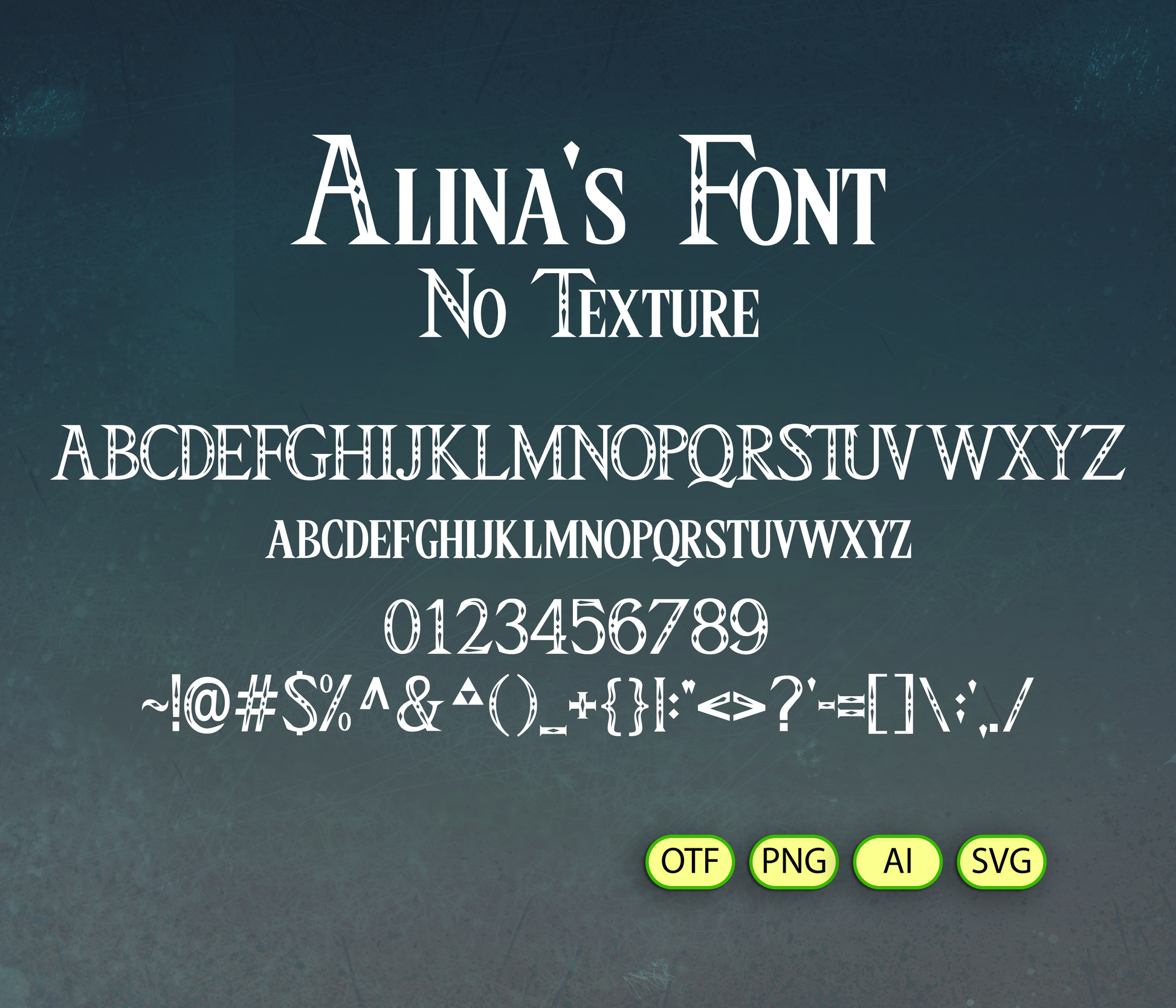
Heroic Adventure Celtic Font
Heroic Adventure Celtic Fantasy Style
Embark on an epic journey through mystical kingdoms and ancient prophecies with our Heroic Adventure Celtic Fantasy font, capturing the essence of legendary quests and magical realm exploration. Perfect for fantasy game creators, Celtic mythology designers, epic adventure storytellers, and creative professionals, this font delivers the courageously heroic yet mystical, timelessly magical atmosphere of legendary quest tales to your projects. Craft legendary invitations, fantasy adventure merchandise, or digital content with the boldly adventurous, mystically enchanted energy of ancient kingdom sagas.
Our Heroic Adventure Celtic Fantasy font features runic, ancient letterforms and mystically ornate characters reflecting the epically adventurous yet enchanting aesthetic of magical kingdom scenarios. Ideal for:
- Fantasy Adventure Events: Design legendary invites, posters, and banners for quest-themed parties, medieval experiences, and magical kingdom gatherings
- Celtic Fantasy Design: Perfect for book covers, adventure promotions, and mystical-themed accessories that capture heroic quest essence
- Digital Media: Enhance websites, blogs, and social media with runic headers and graphics that express legendary courage and ancient mystique
- Entertainment Content: Add authentic character to fantasy adventure materials, epic quest designs, and promotional materials for magical events
- Personal Projects: Bring epic appeal to scrapbooking, DIY crafts, and home decor inspired by the aesthetics of legendary fantasy adventures